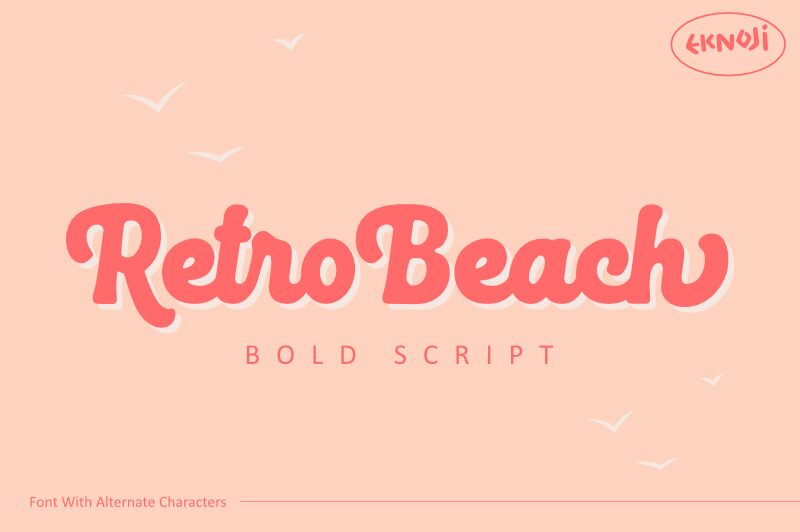
Retro Beach
Retro Beach by Eknoji Studio is a font that breathes life into words with its smooth brush style, crafting a laid-back and inviting atmosphere reminiscent of sandy shores and vintage charm. Its bold strokes convey confidence and presence, making it an excellent choice for designs that call for a touch of nostalgia paired with impact.
Ideal for branding projects, packaging, and promotional materials that aim to evoke the leisurely vibe of a bygone era, Retro Beach stands out in contexts where personality and warmth are key. This font's casual elegance ensures it shines in settings ranging from beach-themed events to retro-inspired advertising campaigns.